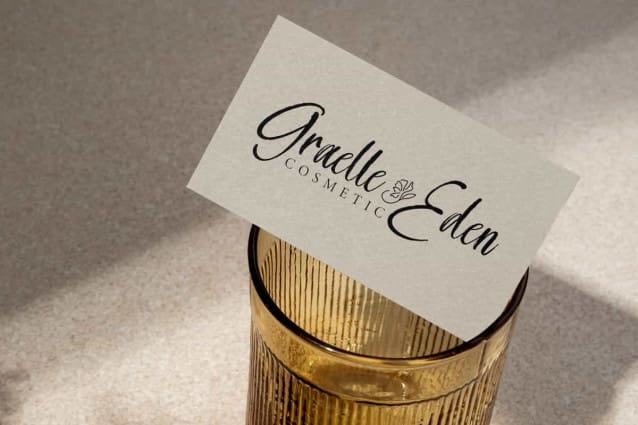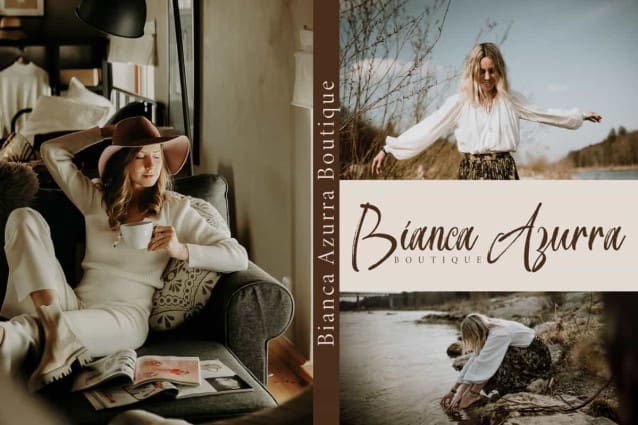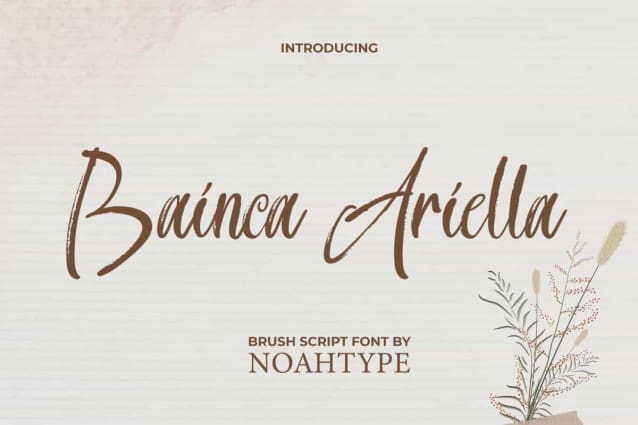
Bainca Ariella Font
Bainca Ariella Font is a beautiful textured dry brush calligraphic script font by NoahType. This font can provide a lovely appearance with a feminine impression. It will be suitable for any industries, such as advertisement, beauty product, cafe, event or wedding organizer, fashion, florist, printing, publishing, and more!
Bainca Ariella Font includes full set of Uppercase and Lowercase Basic Characters, Numerals, Punctuation and Symbol. Go get and use this stunning font with Ligature characters as well in your various designs, such as brand image, brochure, custom design, gift box, greeting or thank you card, invitation, label, menu, poster, quotes, screen printing, signage, stationery, website, and more!